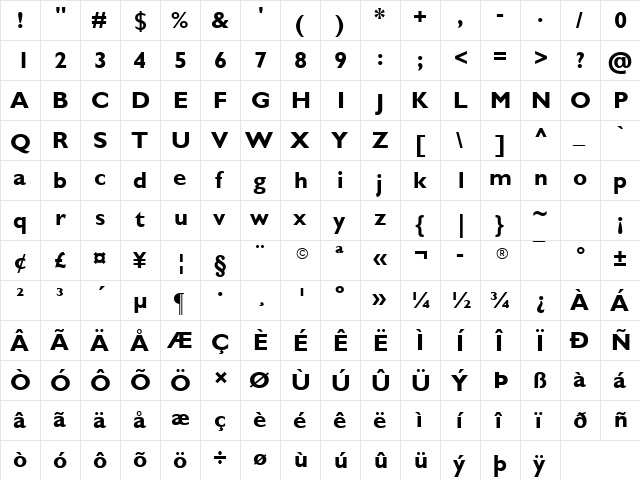
Gill Sans Bold Font Preview
Gill Sans Bold
Design Context for Gill Sans Typeface
Gill Sans takes a measured approach to typography — its balanced proportions and neutral character make it a reliable workhorse for both digital and print work. The heavy weight commands attention and anchors typographic hierarchies.